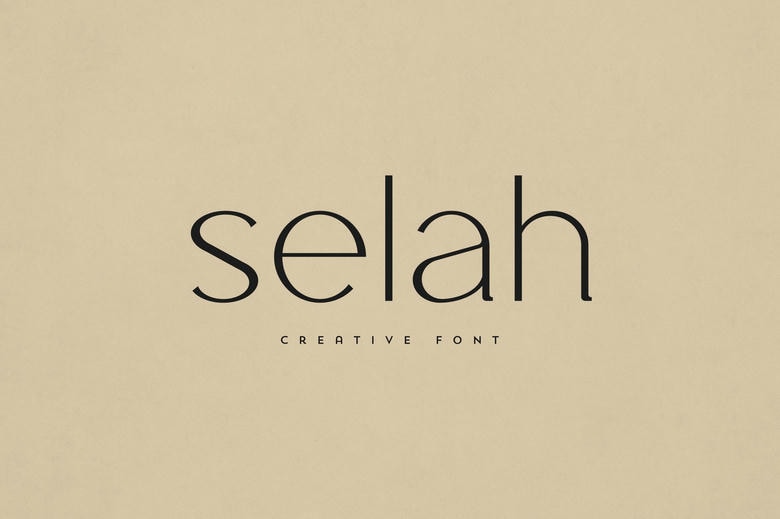
Selah Font
Selah is a unique and classy sans serif typeface that will give your text a unique appearance! It will charismatize all logos, branding, headlines or even plain text!
Selah Sans Serif Font